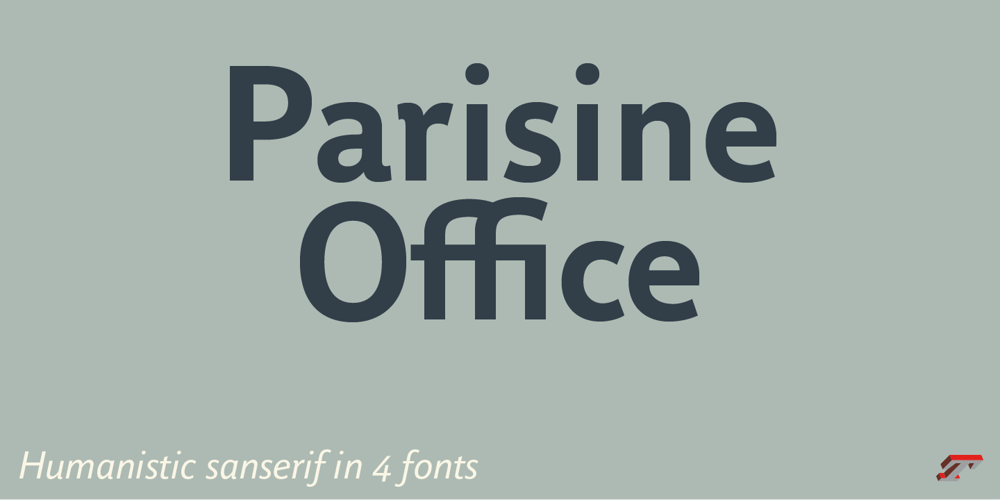
Parisine Office Std Font Family was designed by Jean François Porchez and published by Typofonderie. Parisine Office Std contains 4 styles and family package options. Humanistic sanserif in 4 fontsThe Parisine Office typeface family can be considered as the text version of the Parisine. When Parisine xheight fit Helvetica large xheight, Parisine Office is more close to Gill Sans in term of proportion, as it was developed for Ratp, the public transport in Paris to allow compatibility with documents set in Gill Sans without changing the length of text.Parisine Office by default is a humanistic sanserif available in 4 fonts perfect for text setting. The design of the italic lowercases is more cursive than in Parisine.About Parisine helps Parisians catch the right busObservateur du design star of 2007